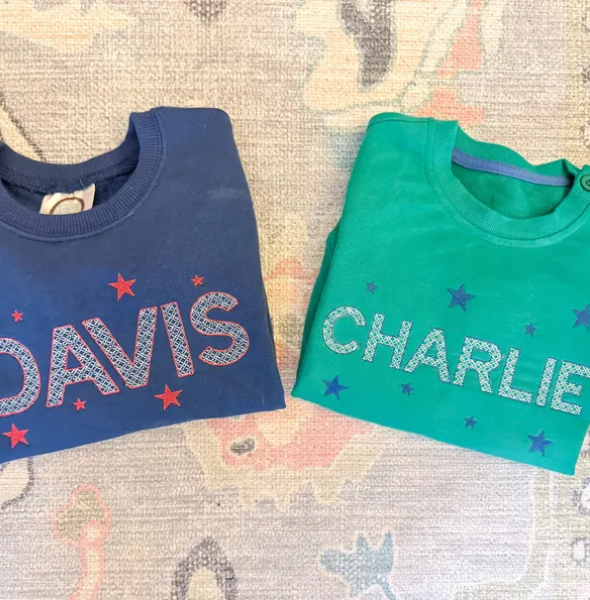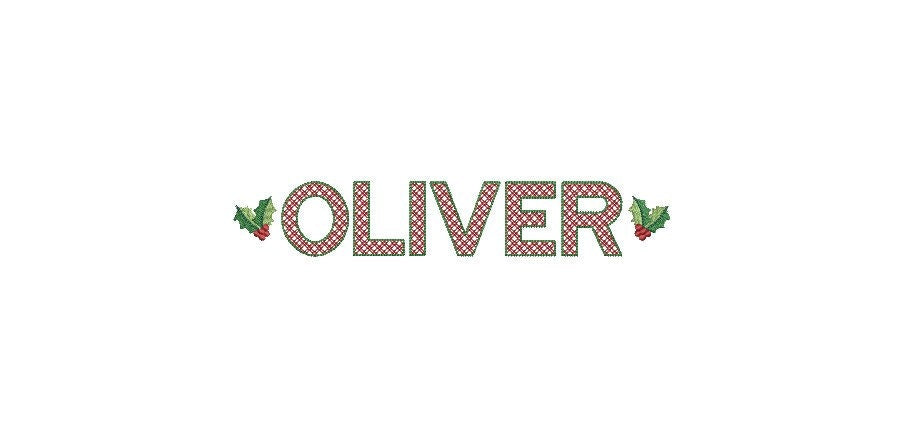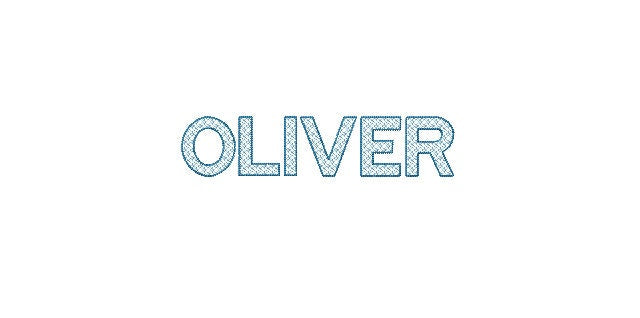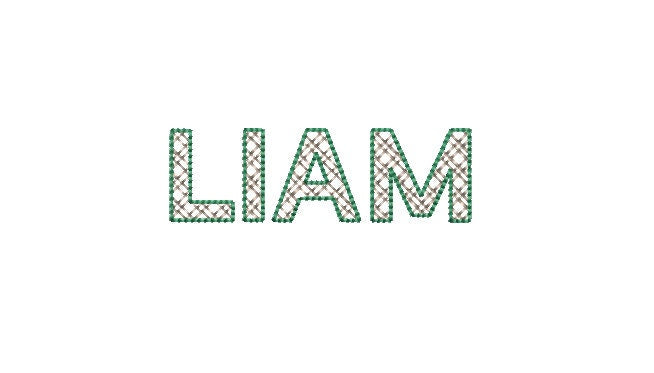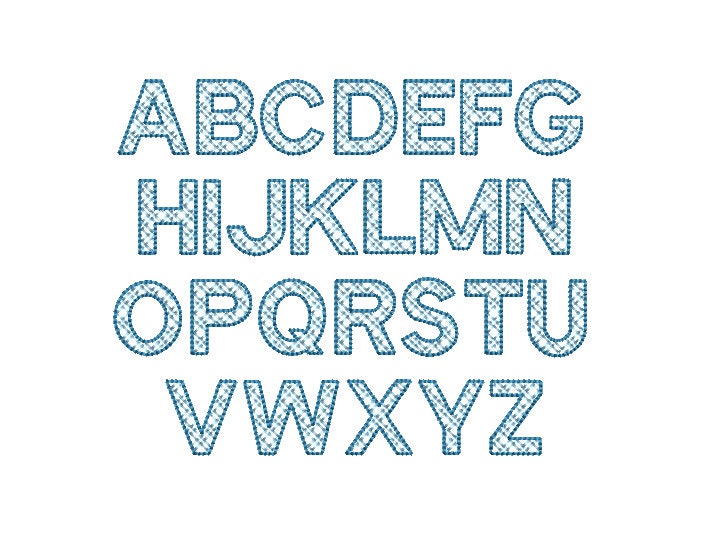
This is a DIGITAL instant download only of a regal block font with an open cross/lattice style fill with a bean stitch outline offered in 7 sizes, 8 formats and BX mapped! Unisex style perfect for everyone!